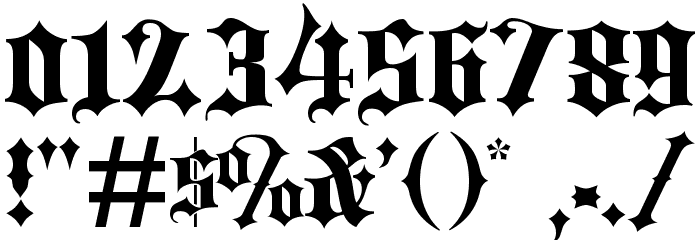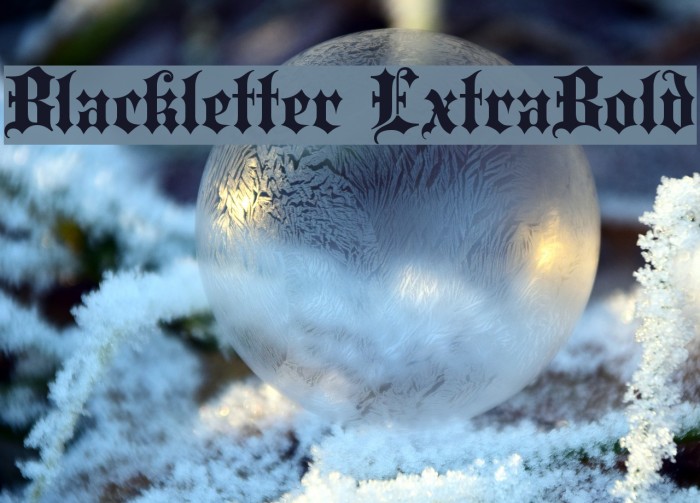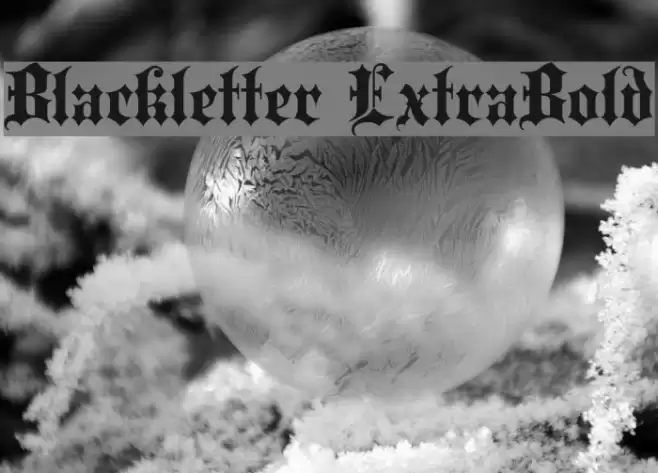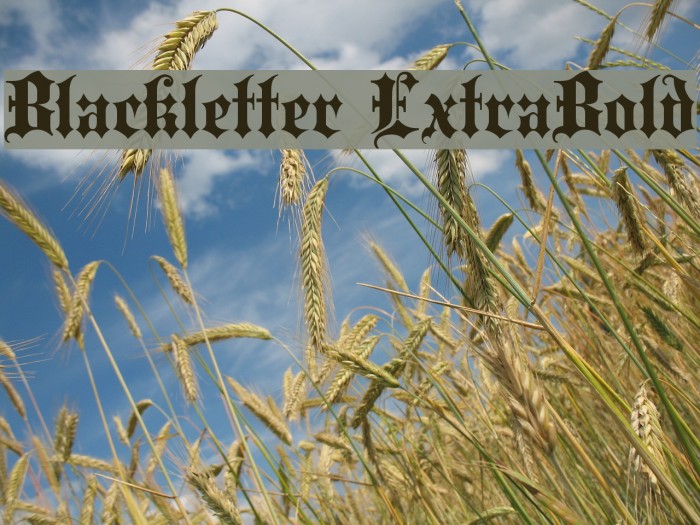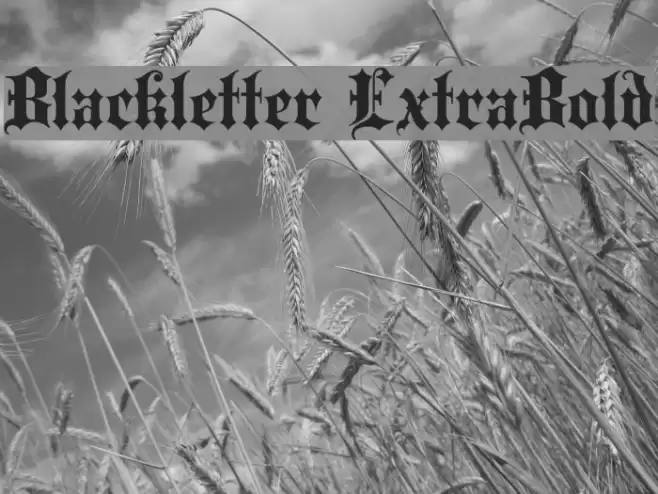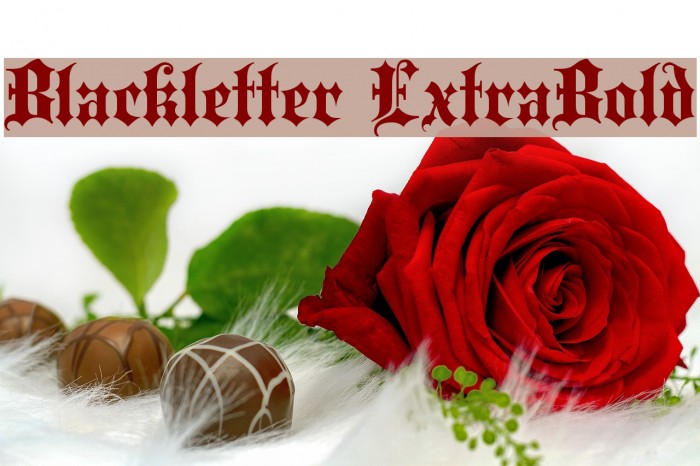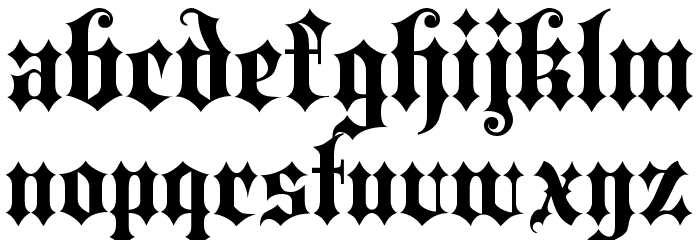
Blackletter ExtraBold Font
Blackletter ExtraBold Description
This font embodies the traditional Blackletter style, characterized by its intricate and ornate design. The letters are bold and heavily stylized, with sharp, angular lines and elaborate serifs that give it a dramatic and historical appearance. The uppercase letters are particularly striking, with their elaborate flourishes and strong vertical emphasis. The lowercase letters maintain the same level of detail, ensuring consistency throughout the typeface. Numbers and special characters are equally ornate, making this font suitable for decorative purposes. The overall aesthetic is reminiscent of medieval manuscripts, offering a sense of antiquity and elegance.
| Overall Style | Vintage |
| Use Case | Logos, Headlines, Decorative text |
| Proposed Projects | Ideal for projects that require a medieval or gothic aesthetic, such as historical publications, themed event invitations, or branding for vintage-inspired products. |